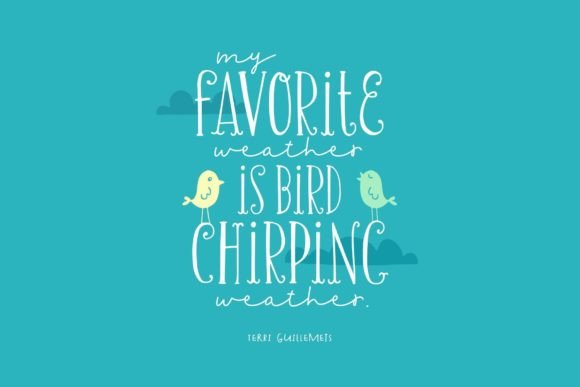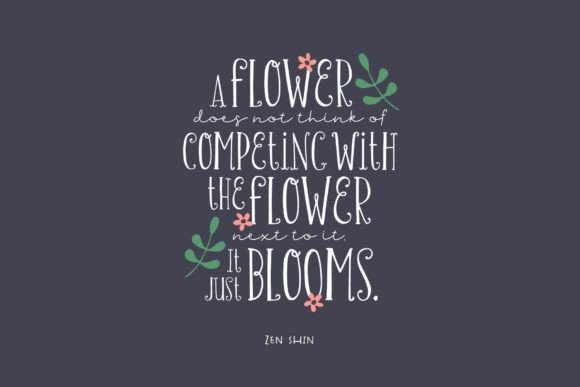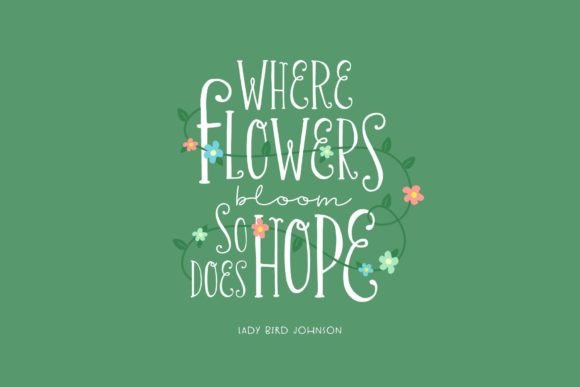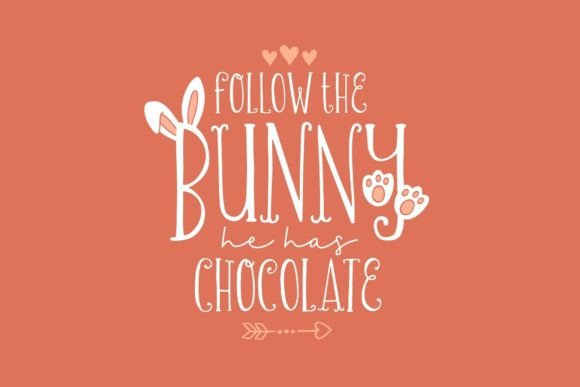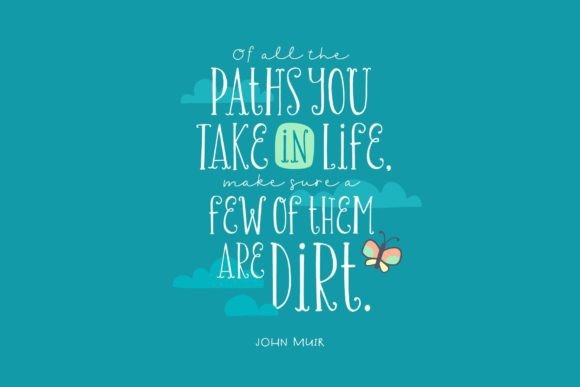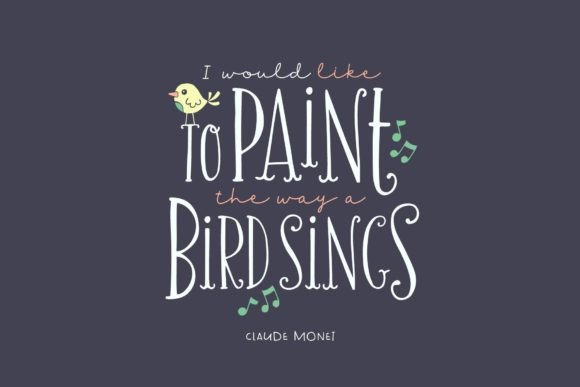
Introducing Chirp & Blossom Font: The Perfect Addition to Your Design Toolbox
Are you tired of using the same old fonts in your designs? Do you want to add a touch of whimsy and playfulness to your projects? Look no further than Chirp & Blossom Font, an adorable all-caps hand-drawn serif font that’s sure to bring a smile to anyone’s face.
What Makes Chirp & Blossom Font So Special?
Chirp & Blossom Font is a unique and charming font that’s perfect for designers and crafters who want to add a personal touch to their work. The font features cute, curly serifs that give it a playful and feminine feel, evoking feelings of springtime, sunshine, and happiness. Whether you’re working on a branding project, a craft tutorial, or a social media graphic, Chirp & Blossom Font is sure to make your designs stand out.
Hand-Drawn with Love and Care
One of the things that sets Chirp & Blossom Font apart from other fonts is its hand-drawn nature. Each letter has been carefully crafted with love and care, giving the font a personal and unique feel. The hand-drawn serifs add a touch of whimsy and playfulness to the font, making it perfect for designs that require a bit of personality.
All-Caps and Easy to Read
Chirp & Blossom Font is an all-caps font, making it easy to read and perfect for headlines, titles, and other applications where you want to make a statement. The font is also highly legible, even at smaller sizes, making it versatile and easy to use.
Bonus Nature-Inspired Doodles
But that’s not all – Chirp & Blossom Font also comes with a bonus set of nature-inspired doodles to bring your designs to life! These doodles feature a range of flowers, leaves, and other natural elements that can be used to add a touch of whimsy and personality to your designs. Whether you’re working on a spring-themed project or just want to add a bit of greenery to your design, these doodles are the perfect addition.
Chirp & Blossom Font is perfect for designers and crafters who want to add a personal touch to their work. Whether you’re working on a branding project, a craft tutorial, or a social media graphic, this font is sure to make your designs stand out. The font is also highly versatile, making it suitable for a wide range of applications, from digital design to printmaking.
How to Use Chirp & Blossom Font in Your Designs
Tips and Tricks for Getting the Most Out of Chirp & Blossom Font
Here are a few tips and tricks for getting the most out of Chirp & Blossom Font:
- Use the font in all-caps to make a statement and draw attention to your design.
- Pair the font with other fonts to create a unique and eye-catching design.
- Use the bonus doodles to add a touch of personality to your designs.
Chirp & Blossom Font is a unique and charming font that’s perfect for designers and crafters who want to add a personal touch to their work. With its hand-drawn serifs, all-caps design, and bonus nature-inspired doodles, this font is sure to bring a smile to anyone’s face. Whether you’re working on a branding project, a craft tutorial, or a social media graphic, Chirp & Blossom Font is the perfect addition to your design toolbox.